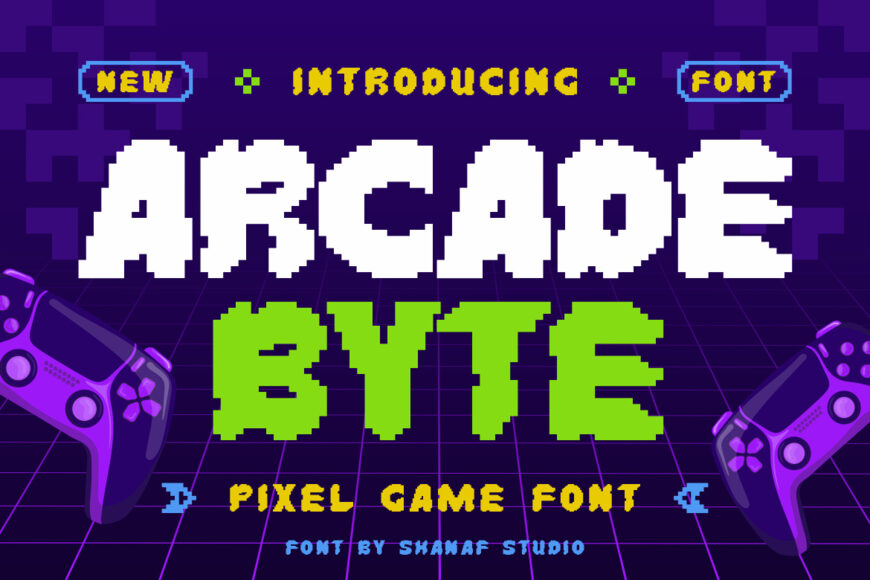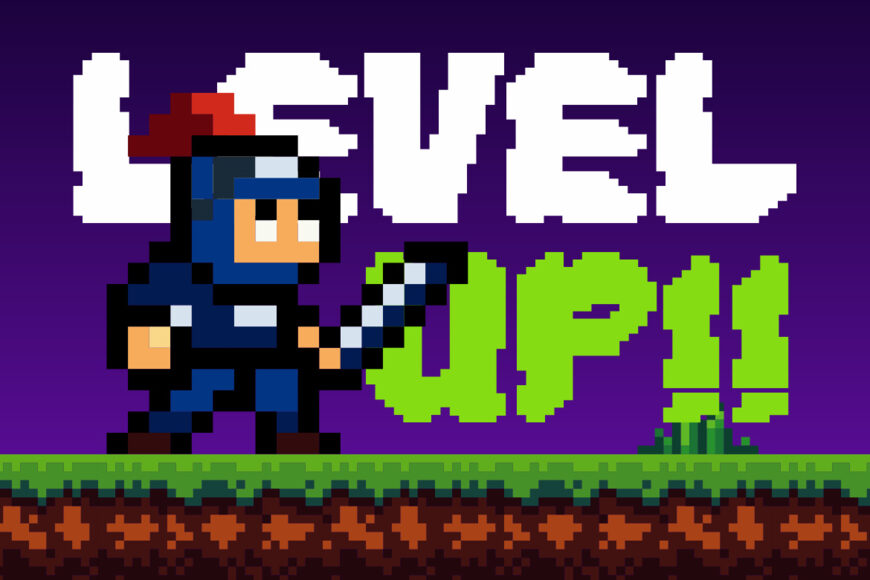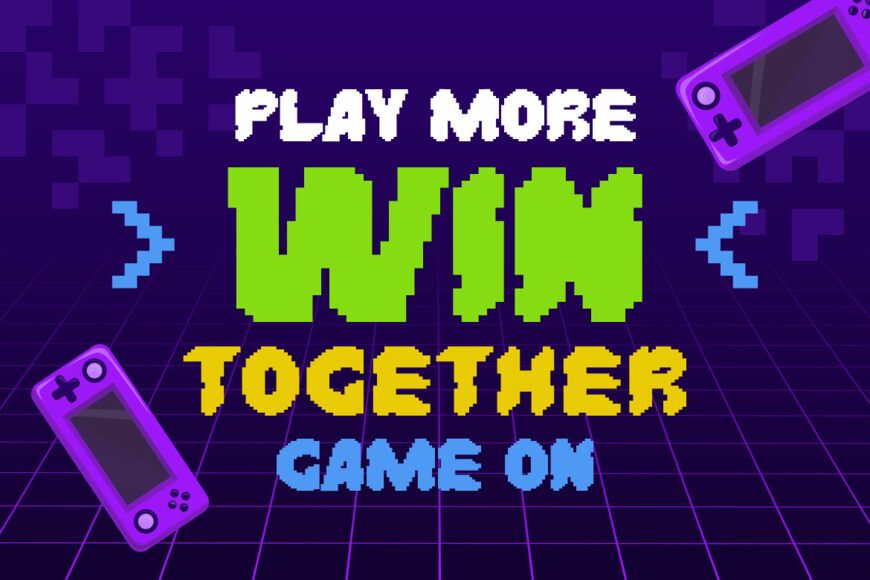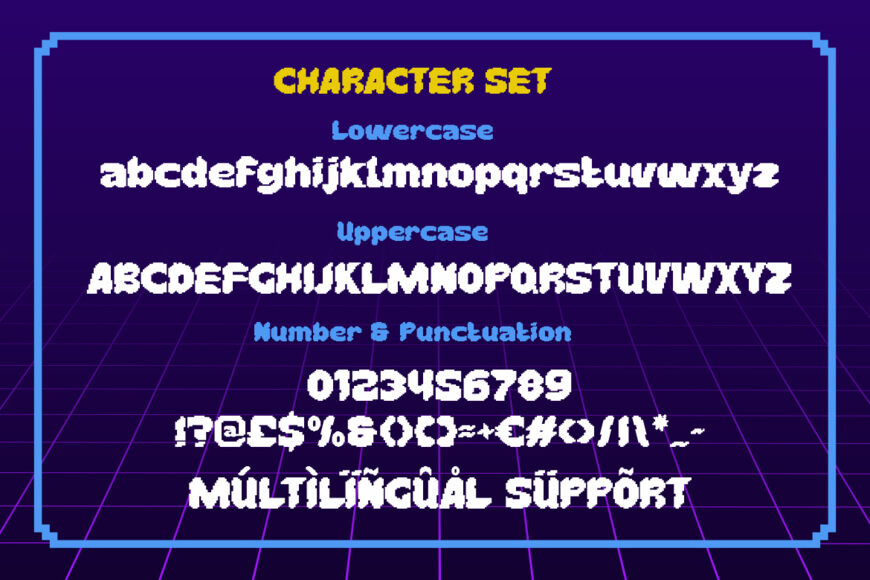
Arcade Byte Font
Arcade Byte is a pixel-style game font that captures the nostalgic spirit of classic arcades and early console adventures. Its bold, blocky letters feature square edges, stepped corners, thick strokes, and precise grid-based geometry for an instantly recognizable retro look.
Perfect for logos, posters, advertisements, game titles, packaging, stickers, covers, event graphics, social media, crafting projects, greeting cards, and other headline applications, Arcade Byte brings an authentic gaming atmosphere to projects inspired by digital entertainment, fantasy quests, virtual worlds, and retro culture.